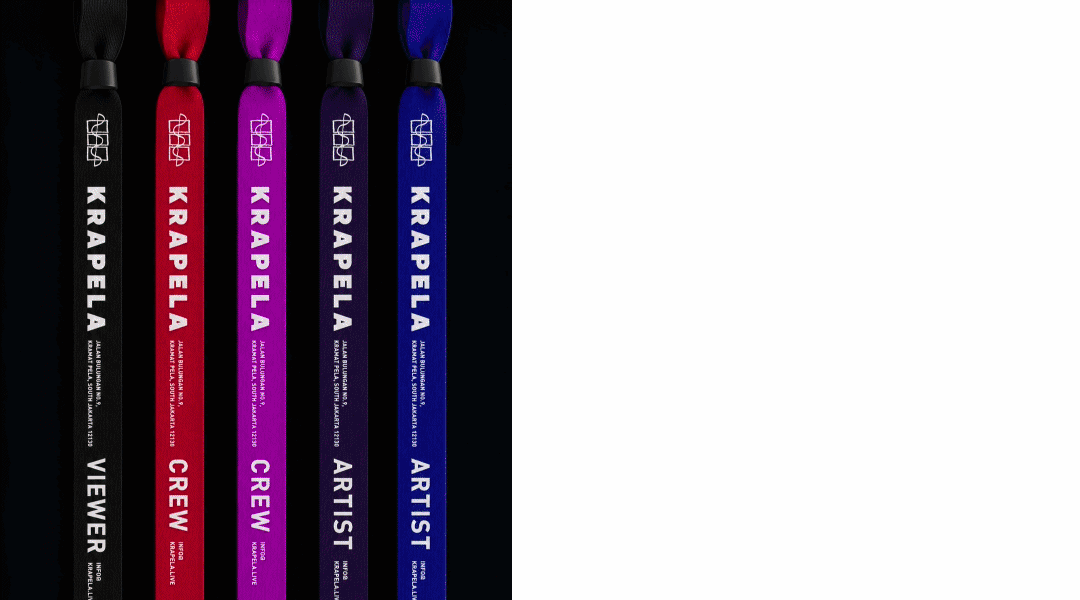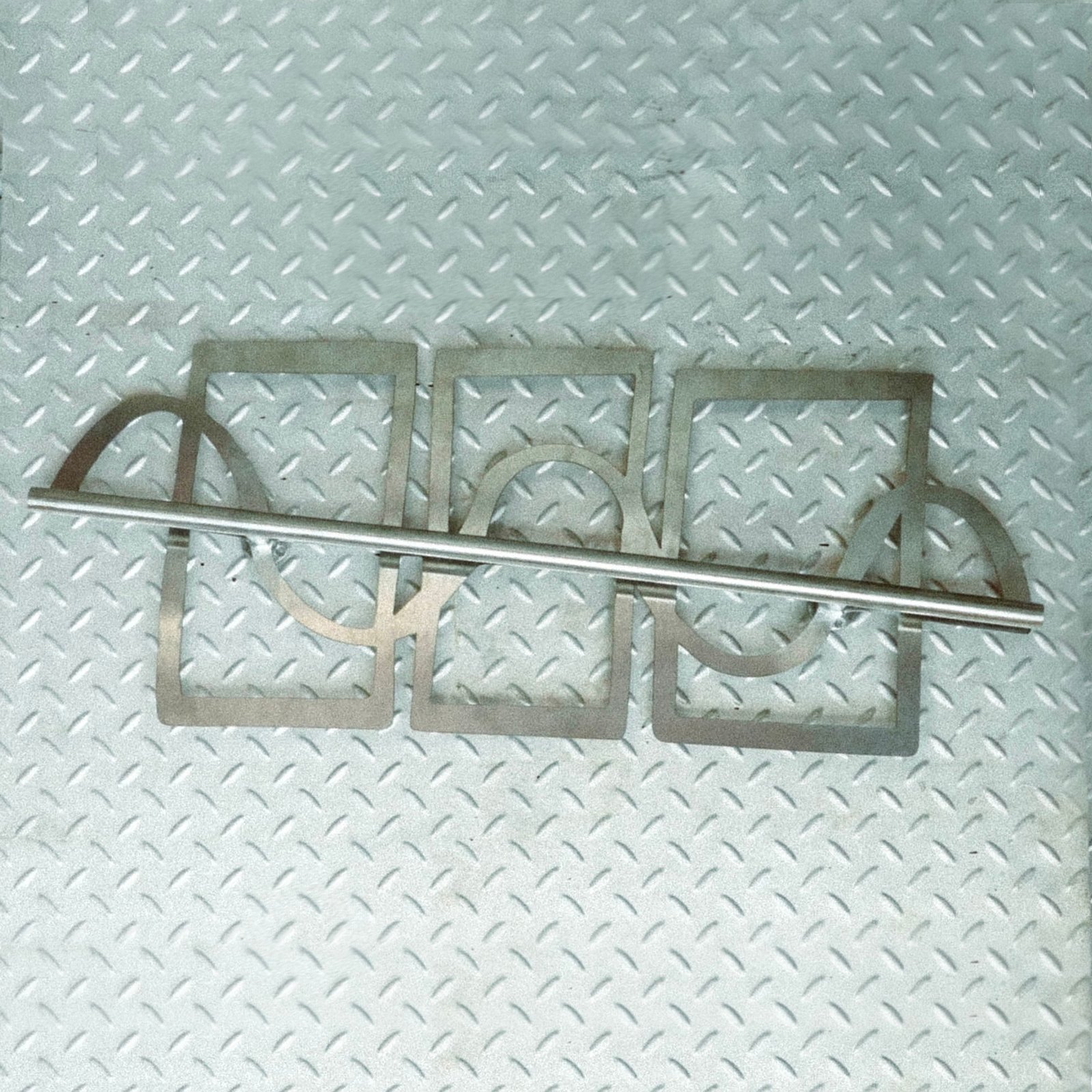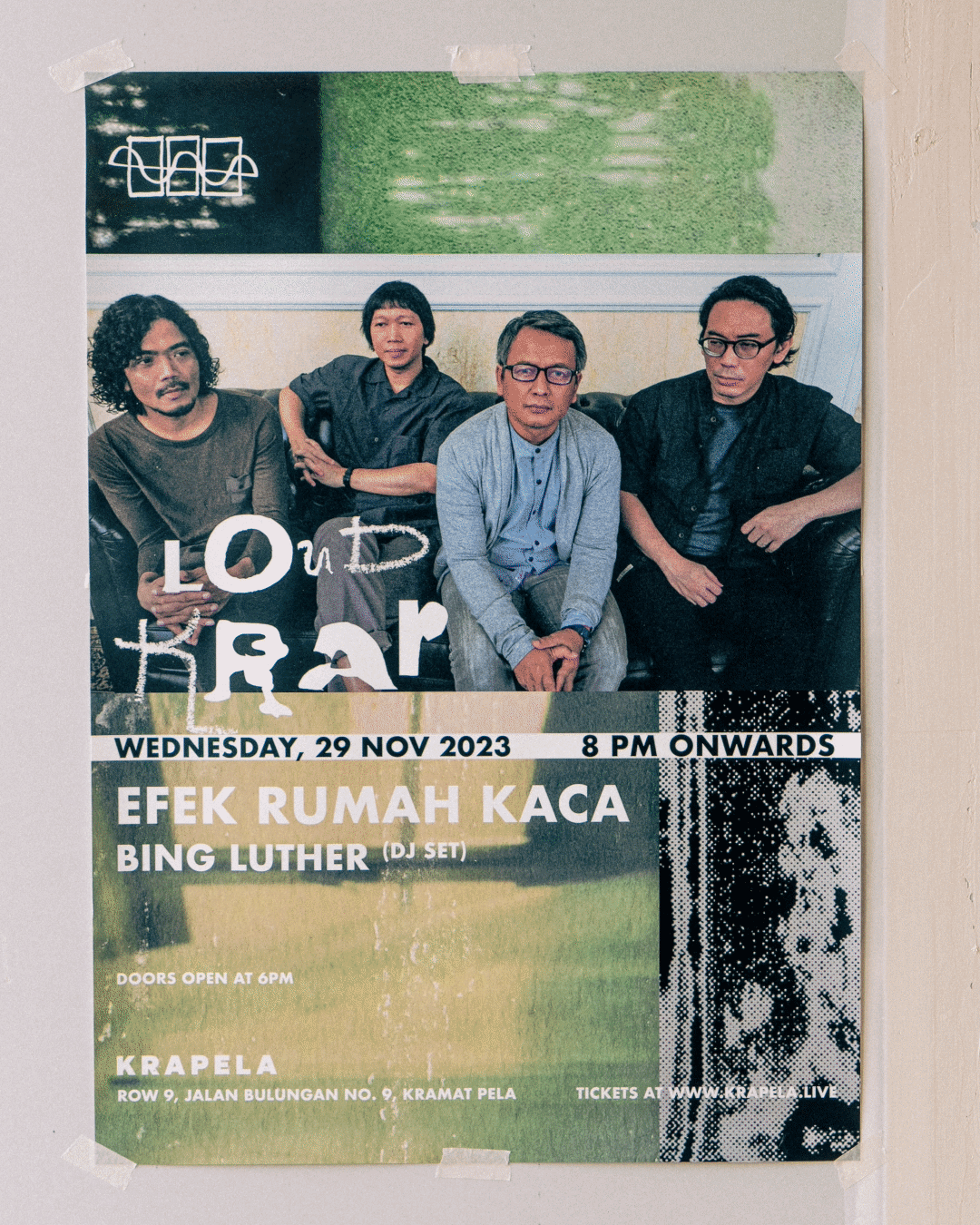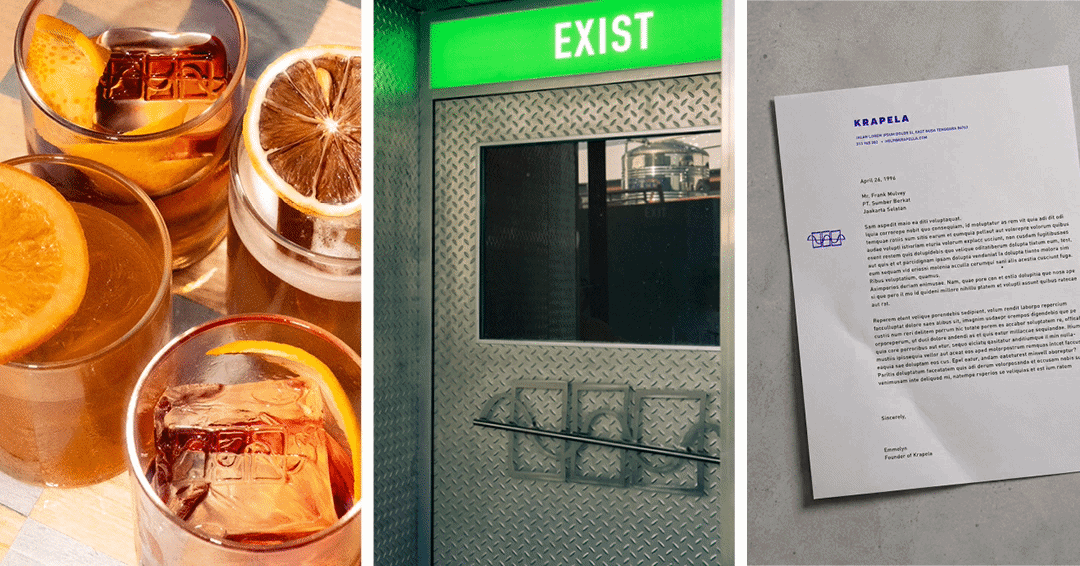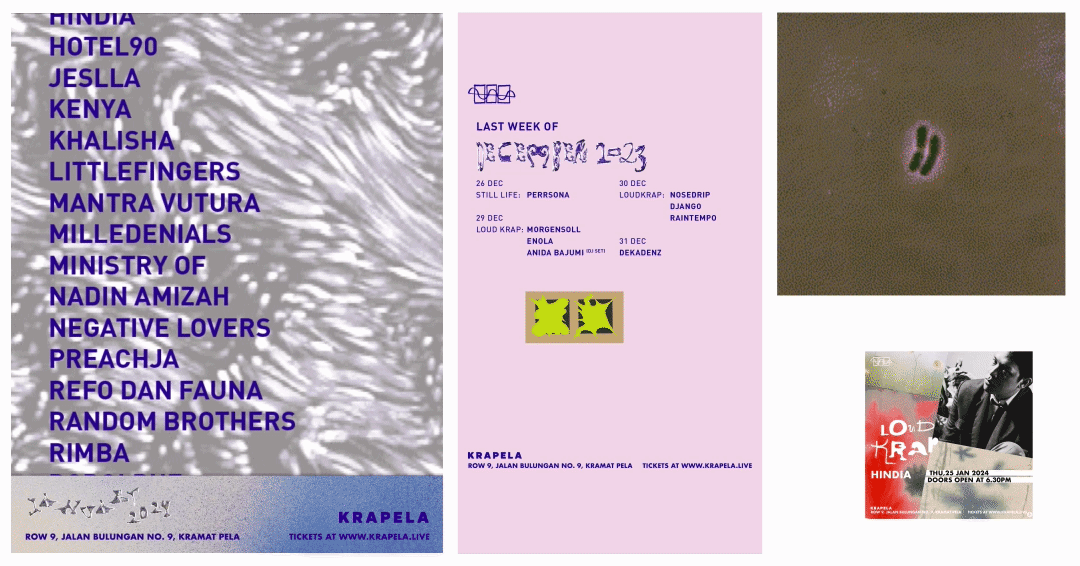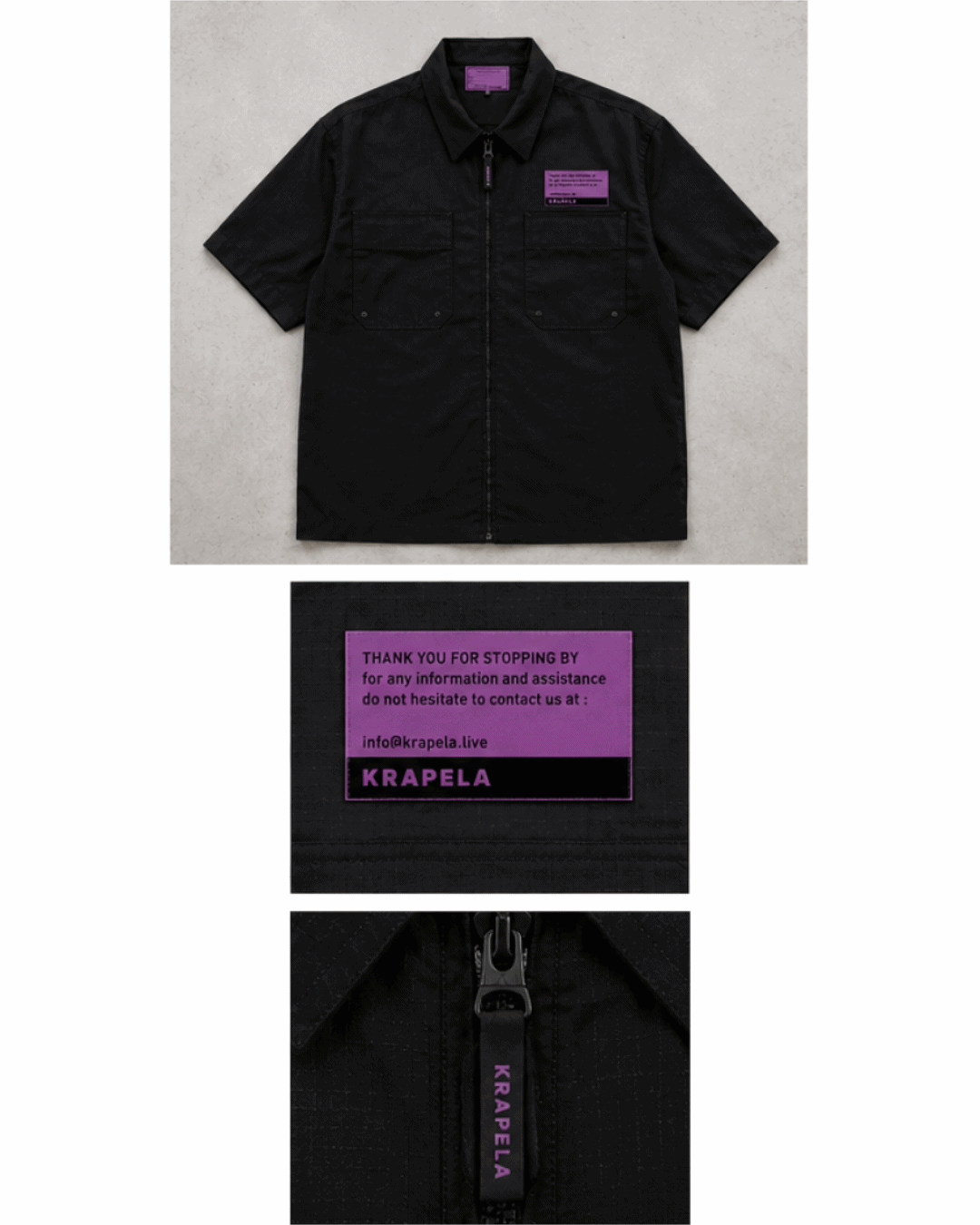
Krapela
Deliverables: Brand identity, poster designs, product designs, way-finding, collateral applications.
The Brief
Krapela is a modular music and arts space in Blok M (Jakarta) with an adaptive layout built for a programming slate that moves across ambient, IDM, lo-fi house, and everything in between. The brief called for a complete visual identity and design system flexible enough to hold across genuinely eclectic programming without collapsing into a single genre aesthetic.
The venue’s proposition is borderless expression across spatial, sound, program, F&B, people, and location. The identity had to be as modular as the space.
The Work
The mark comes directly from Krapela’s Turbosound speaker system—the iconic rectangular cabinet that defines the venue’s sound capability and physical presence. The concept extends from there: Blok M was historically the social and cultural epicenter of Jakarta’s metropolitan life, a point from which activity radiated outward. The mark places Krapela in that lineage—a new epicenter, anchored to the same geography.
One rule holds the design system together across all applications: the address appears at the bottom of every poster and printed piece. In an identity that otherwise adapts to each program and genre, this is the fixed point. It keeps the venue located—literally and culturally—in Blok M regardless of what is happening on stage.
Typographic Decisions
The typography does not stay fixed. It adapts to the program and the genre. Krapela’s programming is fluid by design, and the identity reflects that without losing coherence. The result is an identity that can move across genres without flattening them into the same visual language.
The System in Use
The RSVP sign is the clearest expression of what the identity is doing. Built from vintage guitar pedals, it is the brand’s ethos made physical: knowledgeable, approachable, with the kind of dry intelligence that references music culture without performing it. The signage system, door knob, staff uniform, menu, coasters, and stationery extend the identity across every surface of the venue. The sofa—designed as part of this engagement—takes it further: the same design logic applied to the furniture itself. At Krapela, the identity is not on the walls. It is in the room.